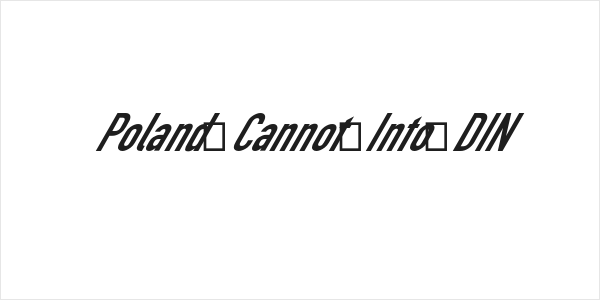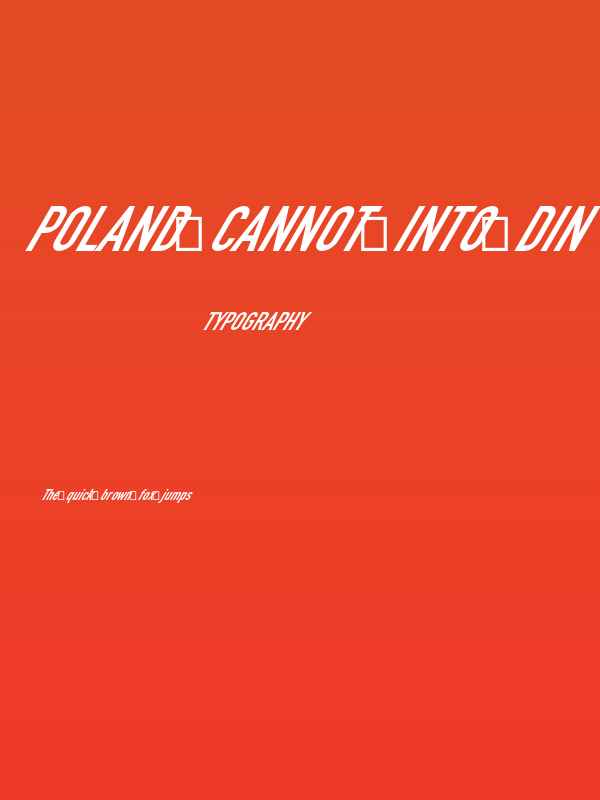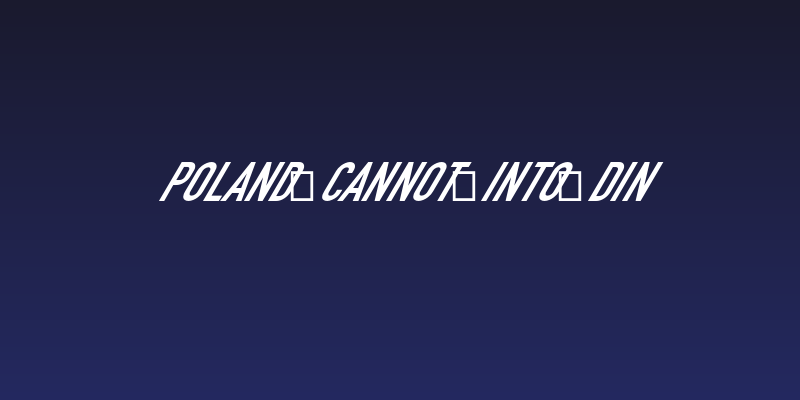
Poland Cannot Into DIN Font
Poland Cannot Into DIN Description
This font features a bold, italicized style with a strong presence. The characters are slanted, giving a dynamic and energetic feel. The uppercase and lowercase letters maintain a consistent width, contributing to a uniform appearance. The numbers and special characters are designed to match the boldness and slant of the alphabet, ensuring a cohesive look across all text elements. The font's sharp angles and clean lines make it suitable for modern and impactful designs.
| Use Case | Headlines, Logos, Advertising |
| Proposed Projects | Ideal for branding, advertising, and headlines where a strong and modern impact is desired. |